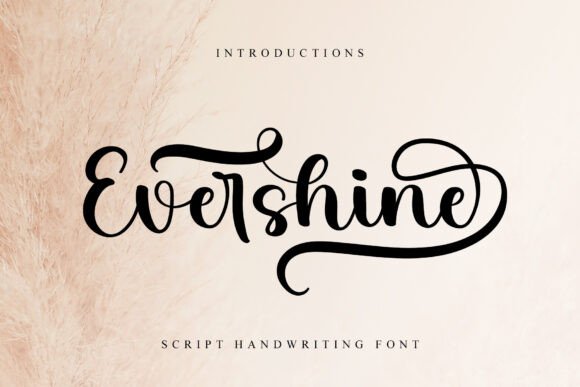
Evershine Font: Elevate Your Designs with Elegance and Magic
In the world of typography, few fonts manage to capture the essence of elegance and magic as effectively as the Evershine Font. This meticulously crafted handwritten font is designed to infuse a touch of sophistication and charm into your designs, making it an ideal choice for creatives looking to elevate their work. Whether you’re curating a stylish Instagram feed or embarking on a DIY project that demands a personal touch, Evershine Font promises to transform your creative ideas into true pieces of art.
What is Evershine Font?
Evershine is a magical handwritten font that has been carefully created to give a touch of elegance to your designs. Its unique charm lies in its ability to blend traditional calligraphy elements with a modern, whimsical feel, making it versatile for a wide range of projects. From digital content creators aiming to make their Instagram posts stand out, to DIY enthusiasts looking for that perfect calligraphy script to add a personal touch to their crafts, Evershine Font is designed to meet diverse creative needs.
Versatile Applications of Evershine Font
The versatility of Evershine Font is one of its most compelling attributes. Here are some of the many ways you can incorporate this beautiful font into your projects:
- Social Media Graphics: Elevate your Instagram feed or create engaging Facebook posts with Evershine Font. Its elegant and eye-catching style ensures that your content stands out in a crowded digital landscape.
- DIY Projects: Add a touch of personalization to your DIY crafts, such as handmade cards, journals, or home decor items, with the beautiful calligraphy of Evershine Font.
- Branding and Logos: For businesses looking to create a brand identity that exudes elegance and sophistication, Evershine Font can be a valuable asset. It’s perfect for crafting logos, business cards, or packaging designs.
- Wedding and Event Planning: Create stunning wedding invitations, event banners, or place cards with Evershine Font. Its magical and elegant feel makes it suitable for special occasions.
Key Features of Evershine Font
Evershine Font comes with a range of features that make it a standout choice for creatives:
- Handwritten Elegance: Each letter is crafted with care, offering a fluid and natural look that mimics handwriting.
- Magical Touch: The font has a whimsical quality that adds a touch of magic to any design.
- Versatility: Suitable for a wide range of projects, from digital media to print materials.
Maximizing the Impact of Evershine Font
To get the most out of Evershine Font, consider the following tips:
- Pair with Complementary Fonts: For maximum effect, pair Evershine Font with simpler fonts to create a balanced look.
- Adjust Size and Color: Experiment with different sizes and colors to add depth and emphasis to your designs.
- Use on High-Quality Backgrounds: Ensure that the background of your design complements the elegant and whimsical feel of Evershine Font.
Evershine Font is more than just a typeface; it’s a tool for creativity that can transform your designs by adding a touch of elegance and magic. Whether you’re a professional designer or a DIY enthusiast, this font offers the versatility and charm needed to bring your ideas to life. With its wide range of applications and easy-to-use features, Evershine Font is poised to become a favorite in the world of typography.
Embracing the Magic of Evershine Font
Incorporating Evershine Font into your design projects is a straightforward way to elevate your work and make it stand out. Its unique blend of elegance and whimsy ensures that your designs will capture the imagination of your audience, making it an invaluable addition to your creative toolkit.